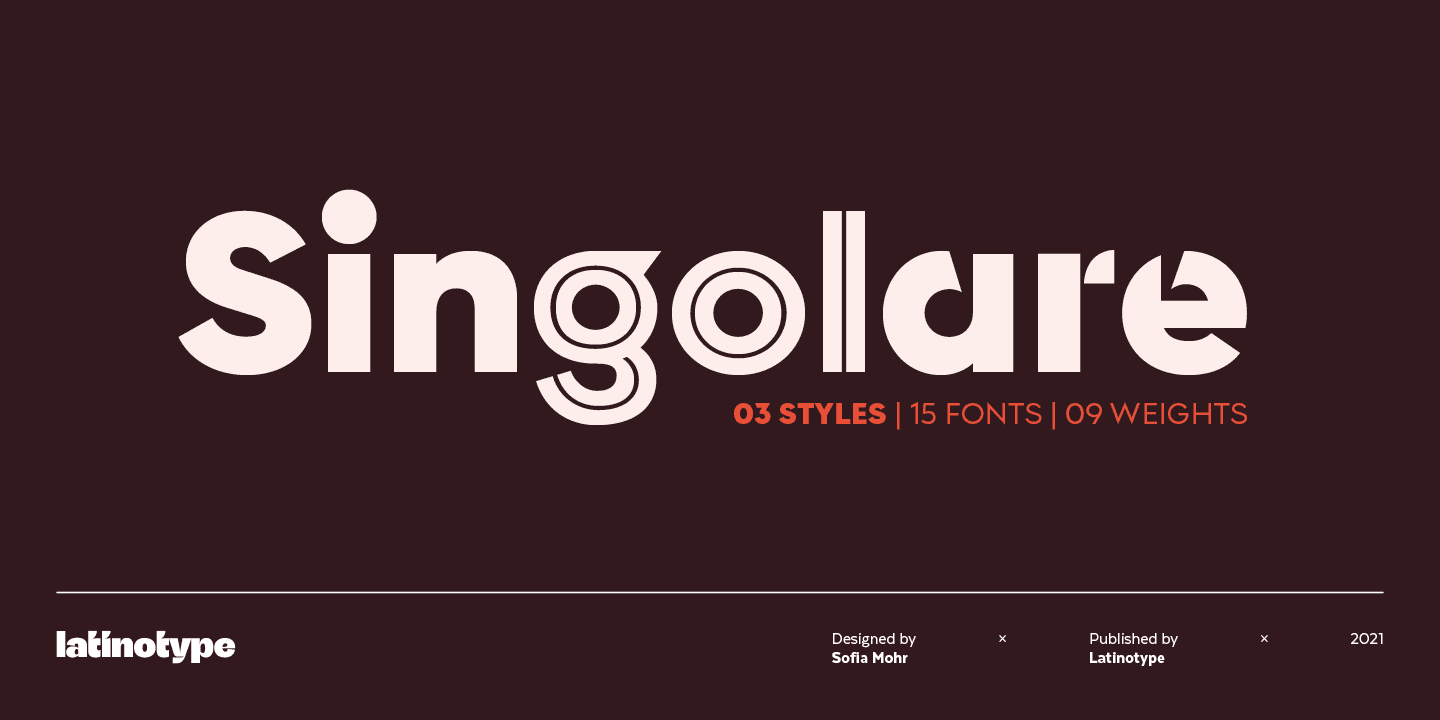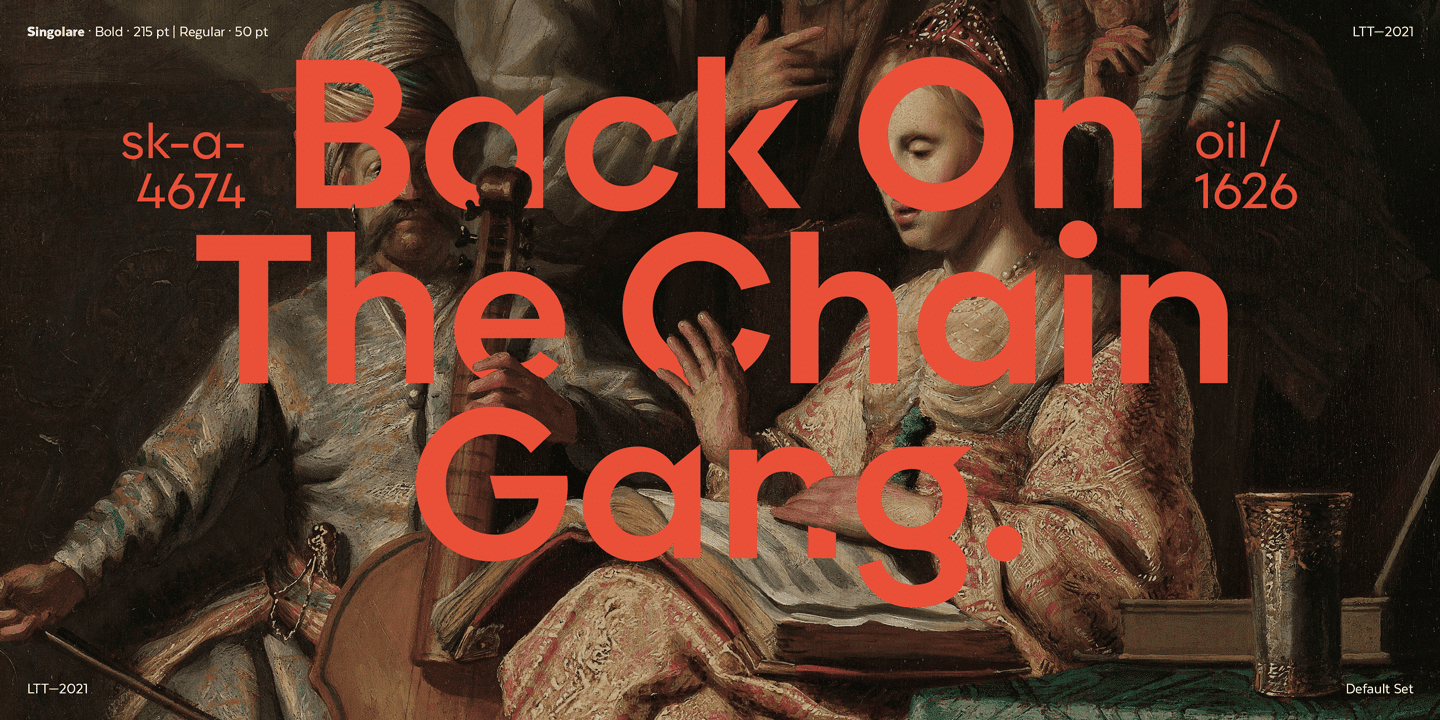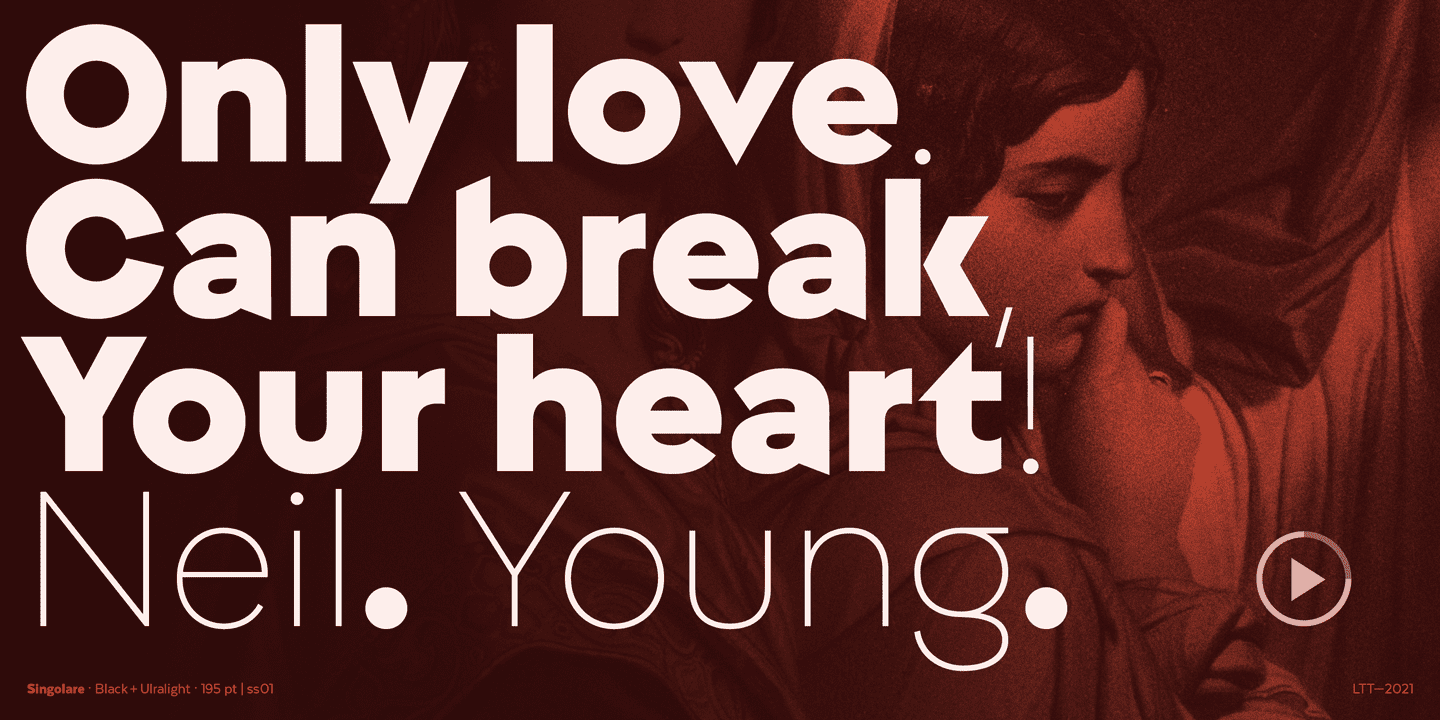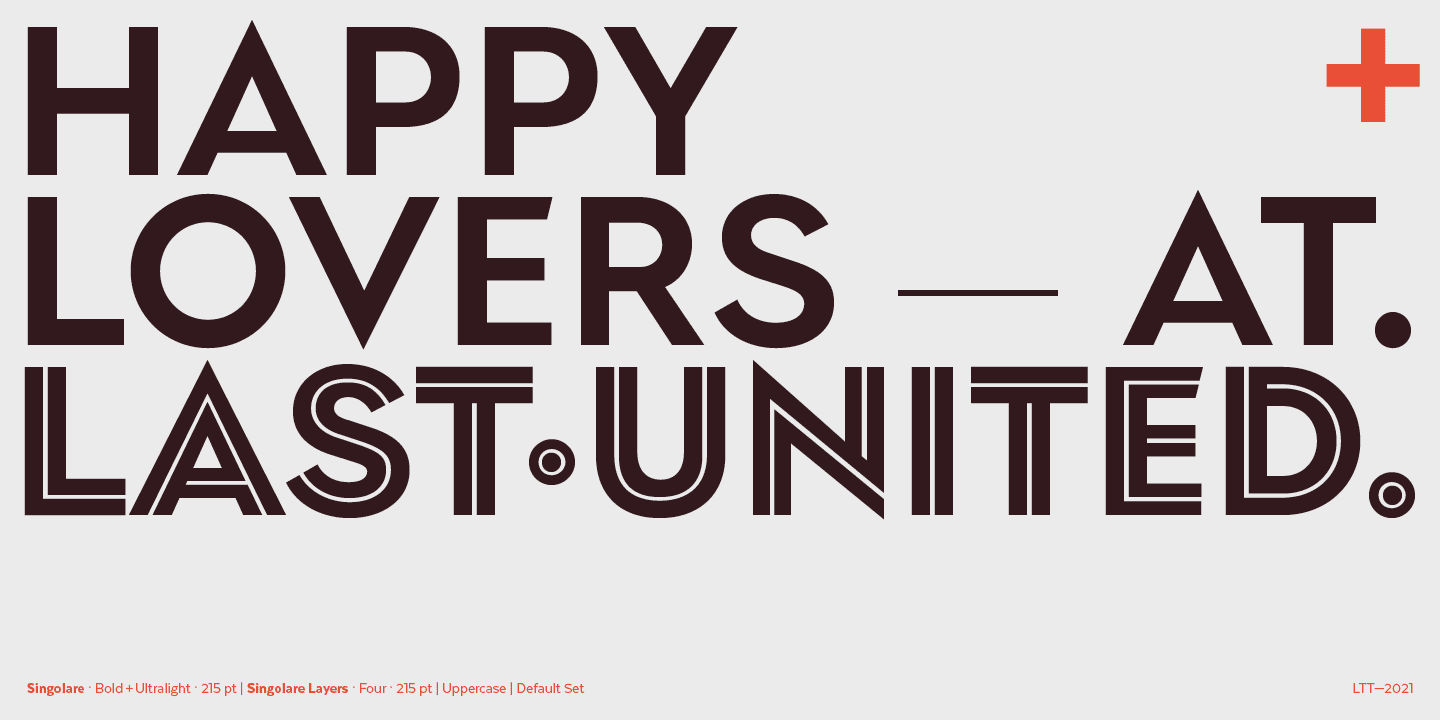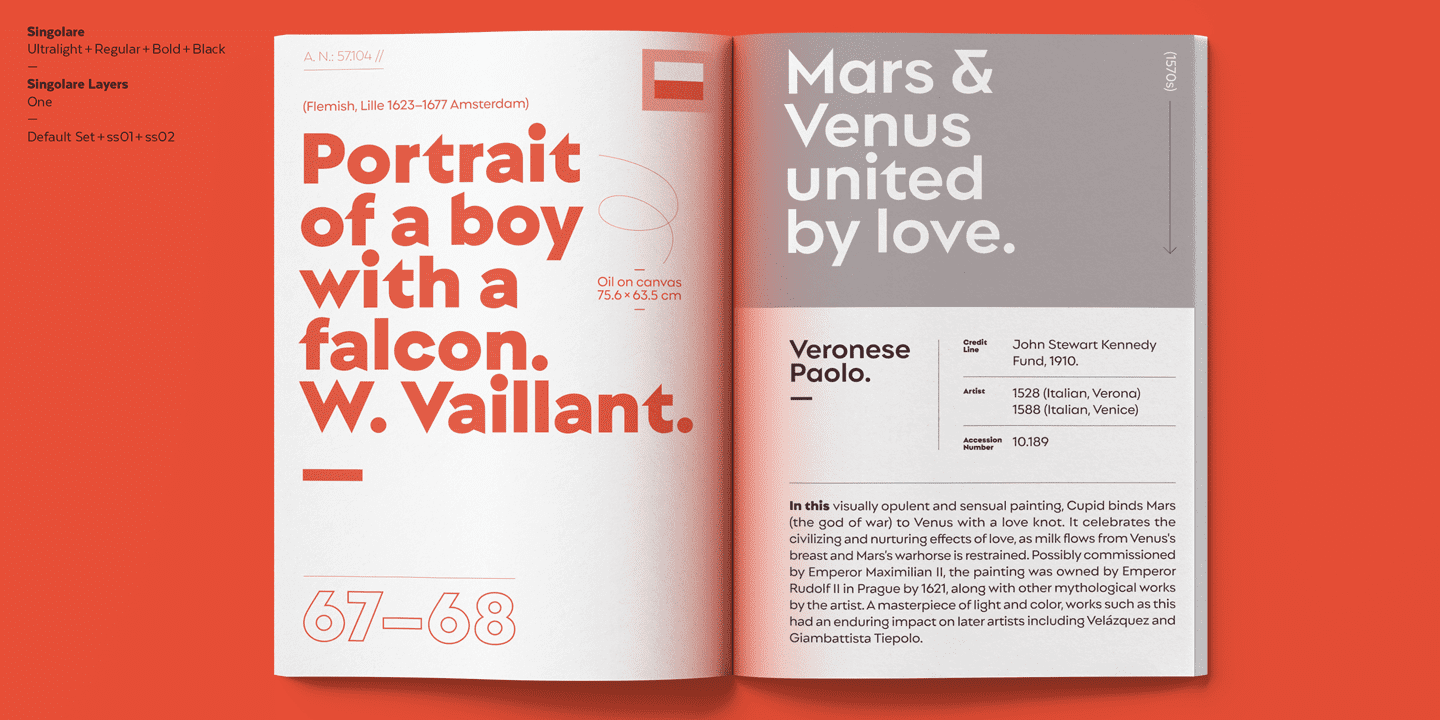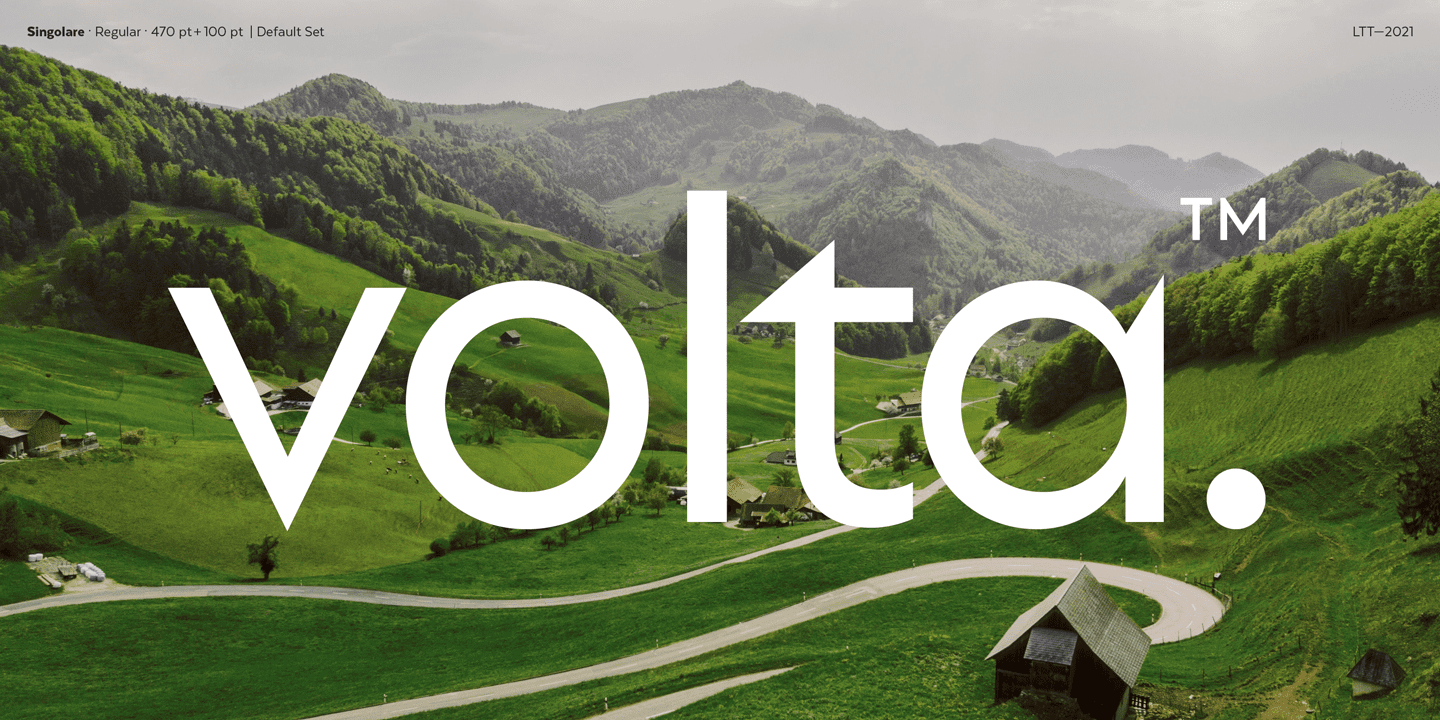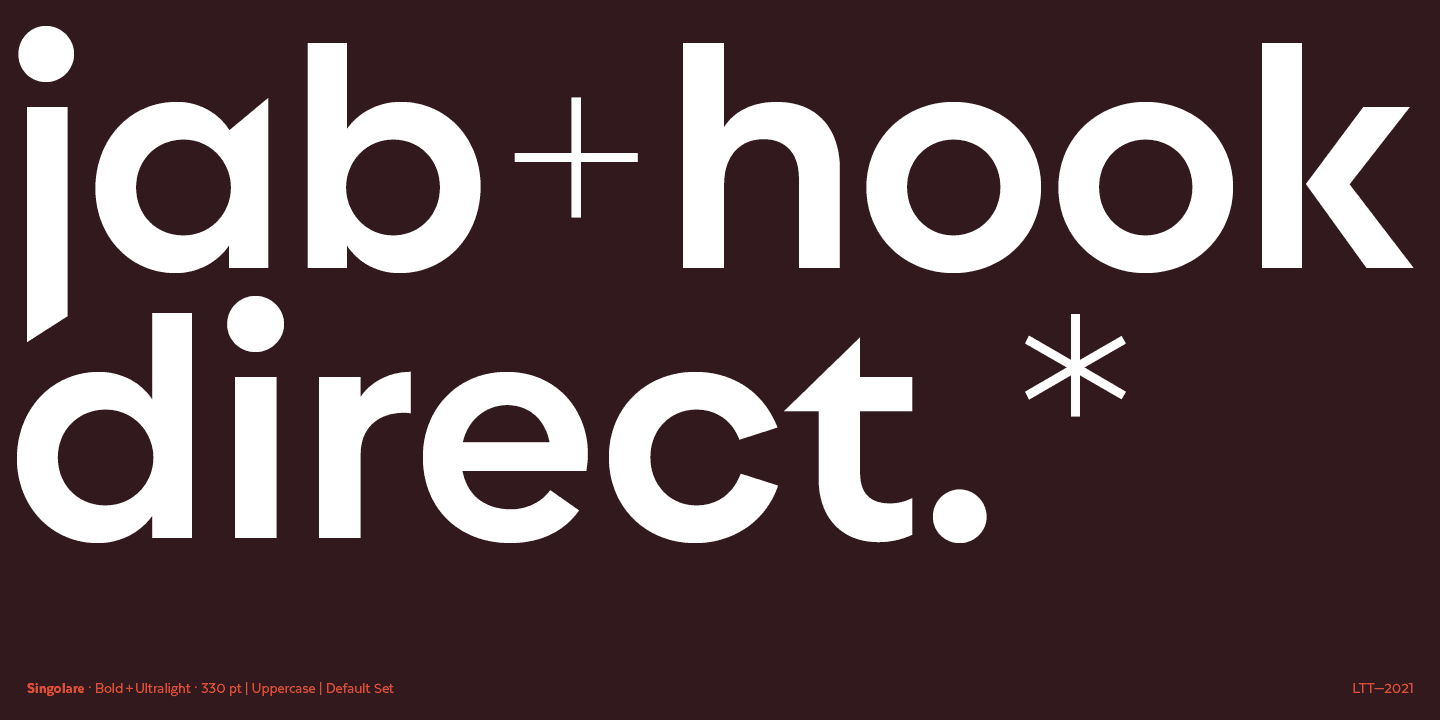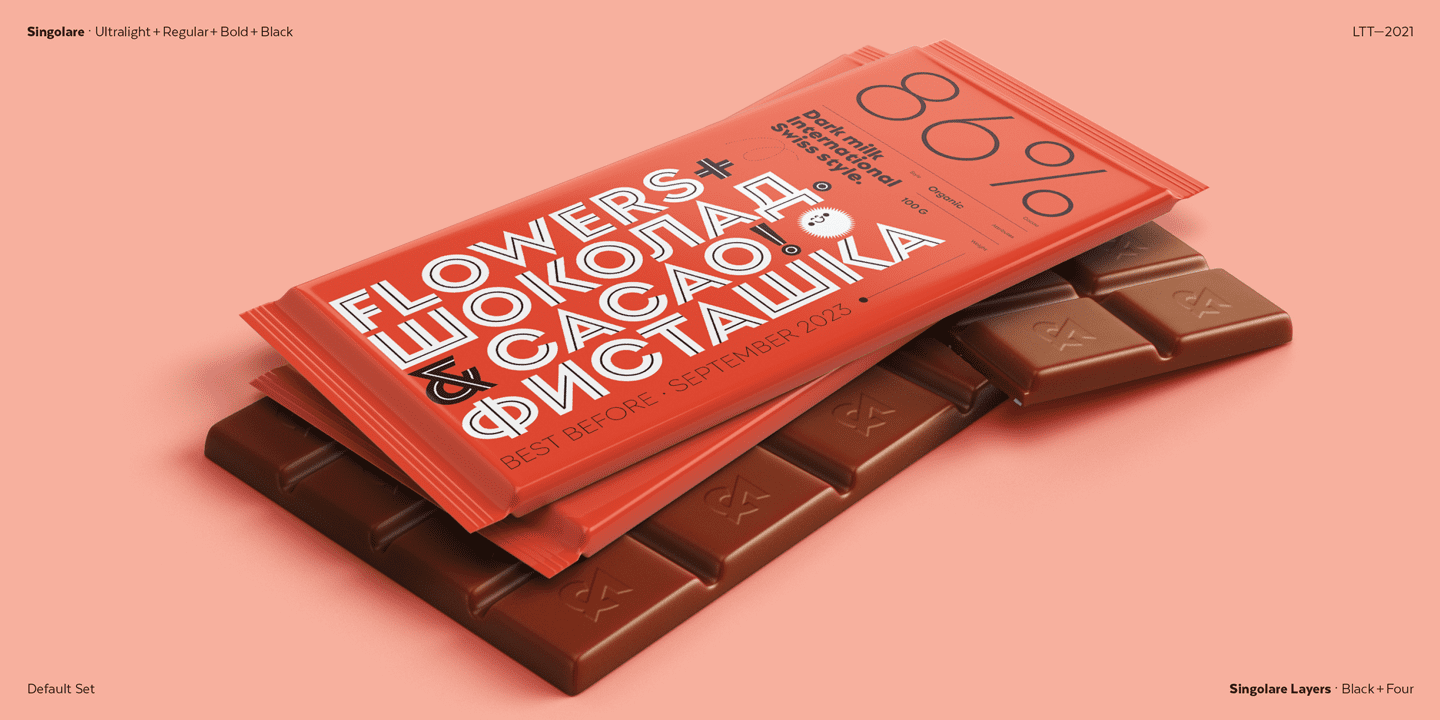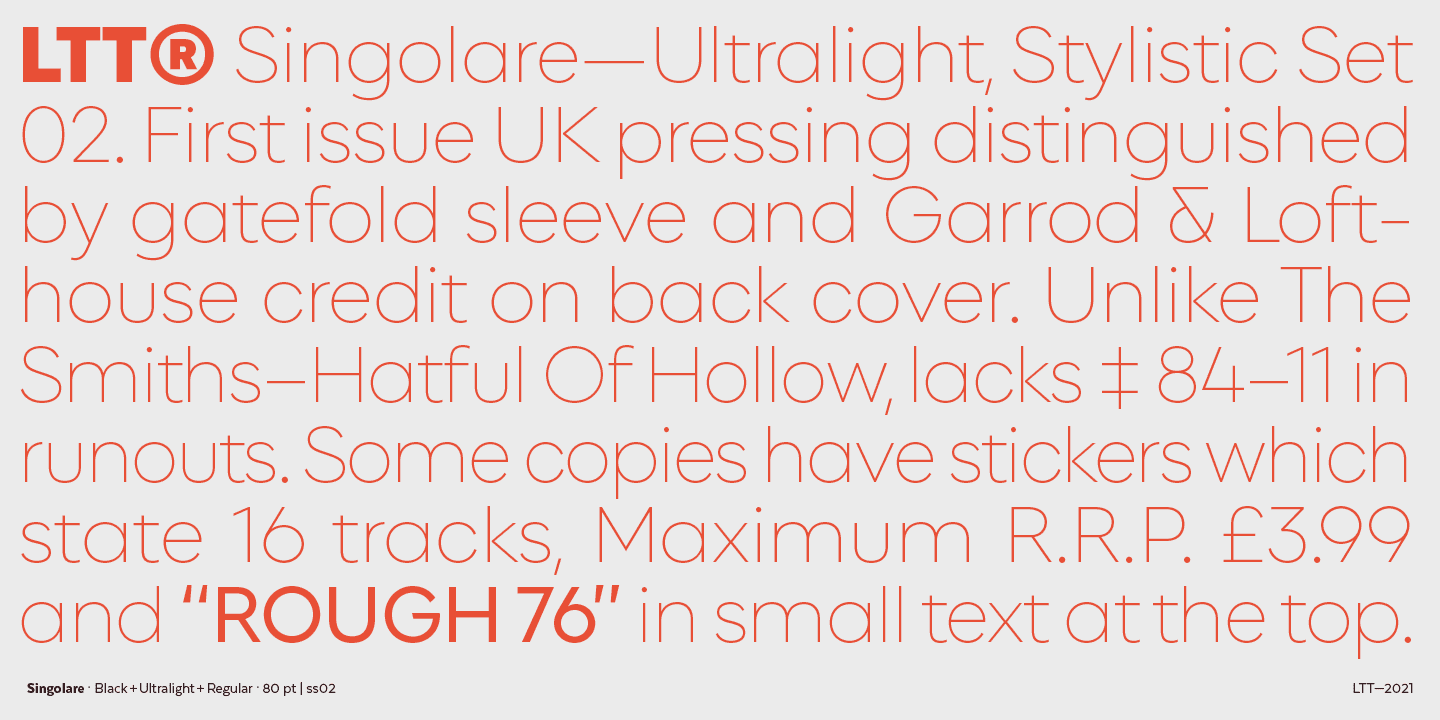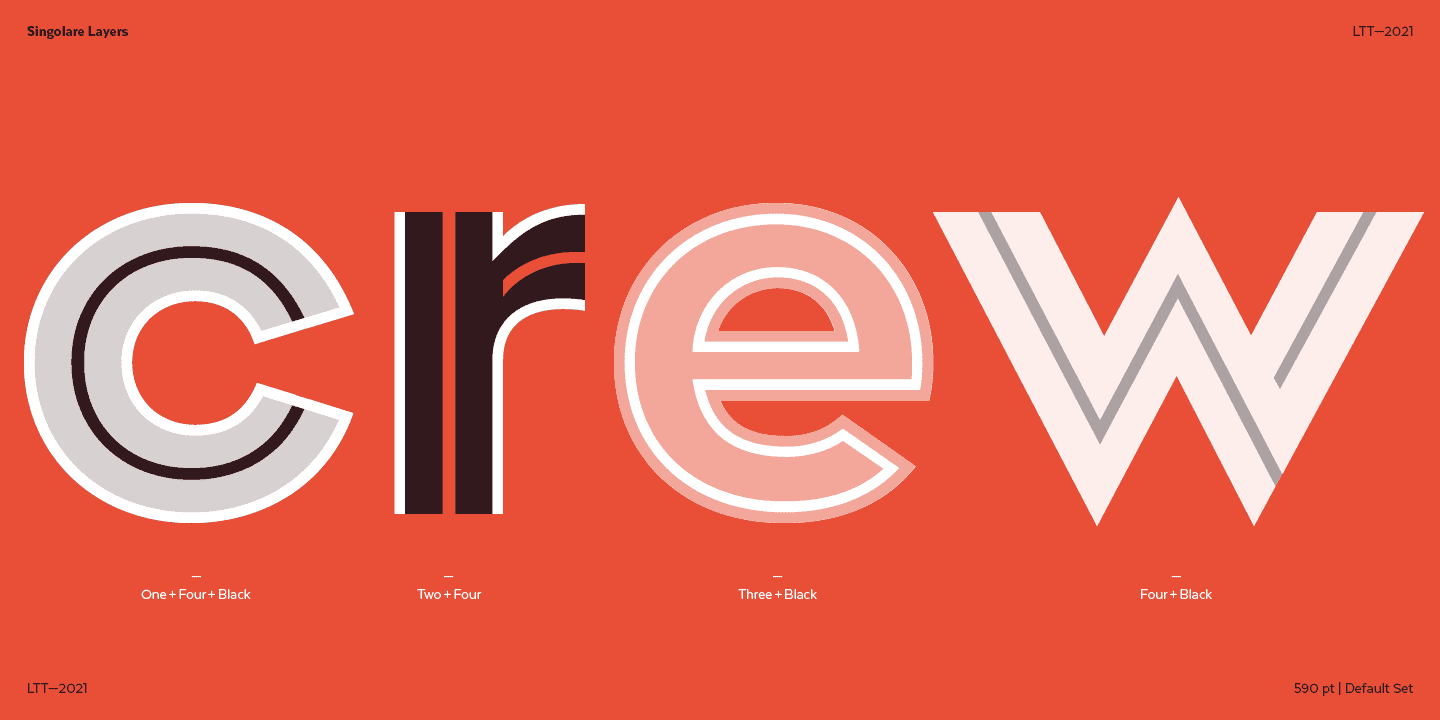
The variety of weights, styles and layers makes this the perfect font for displays and short texts that need major visual impact. Singolare comes with five weights from Ultralight to Black, each weight with its own stencil version and expressive cuts, as well as four decorative versions: three outline versions and one inline version. They can work alone or layered with the normal black version and the ability to change colors in each layer, thus expanding the possibilities of use.